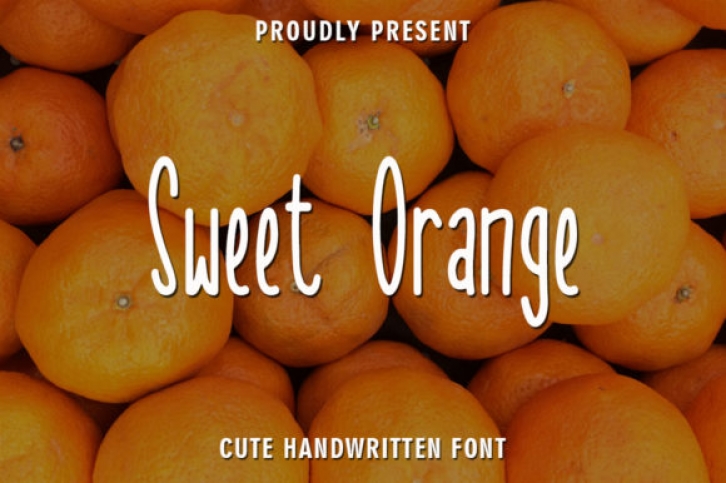
Sweet Orange is a cute and friendly handwritten font. Its natural and unique style makes it incredibly fitting to a large pool of designs. The only limit is your imagination!